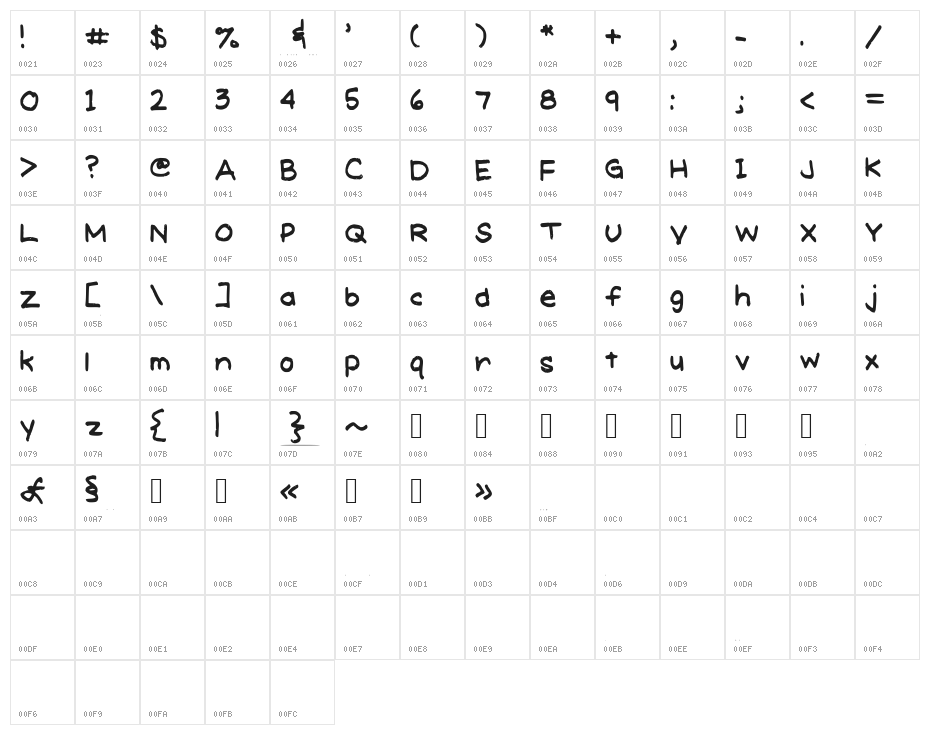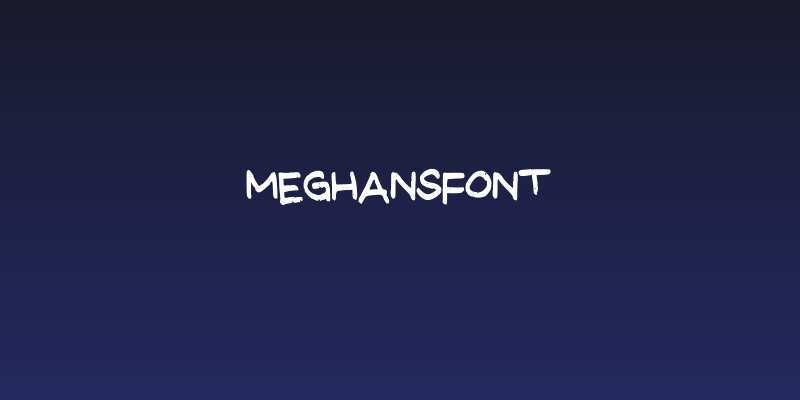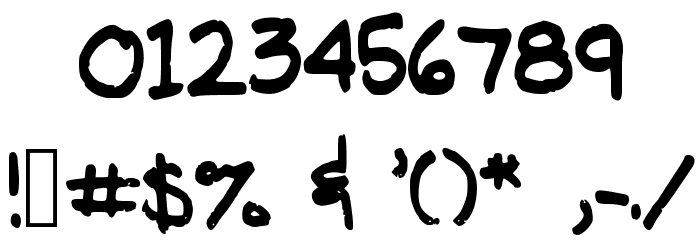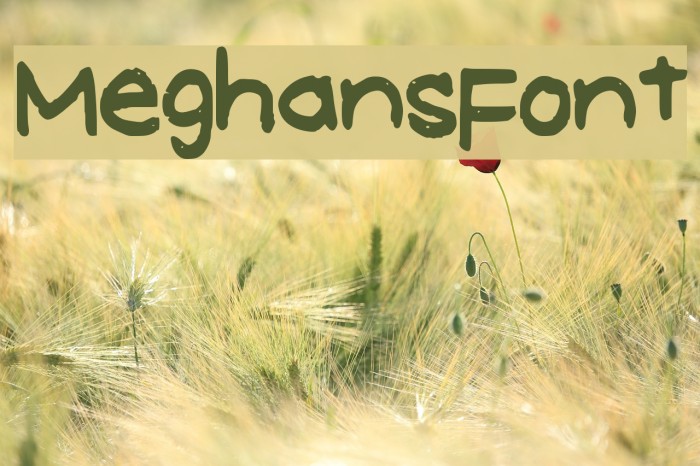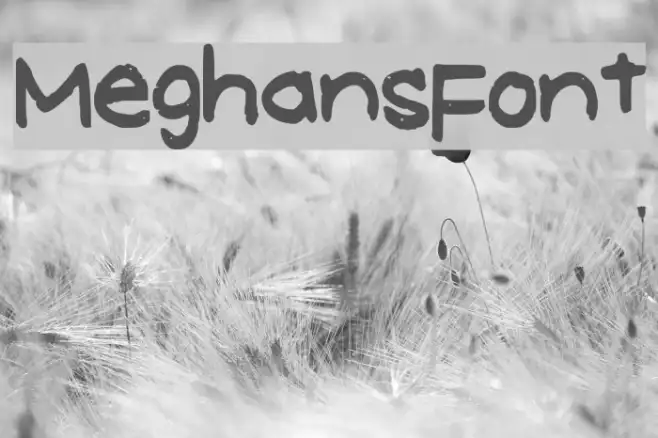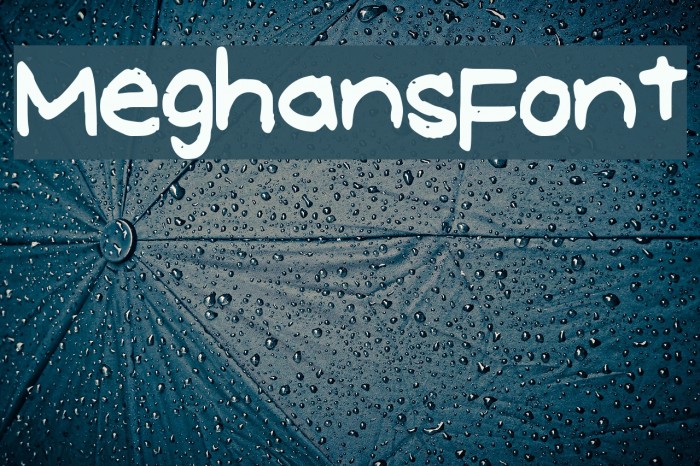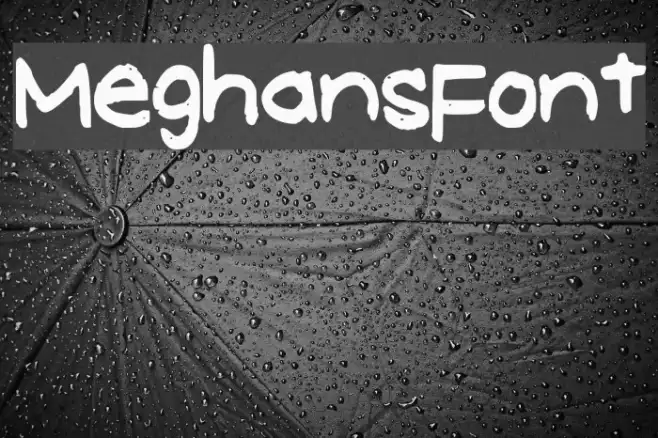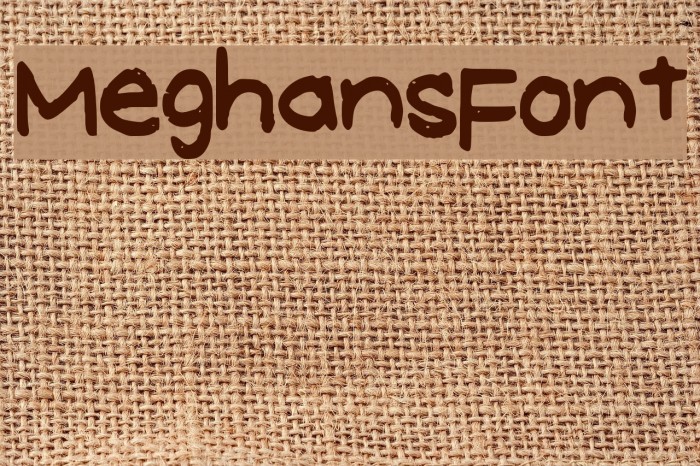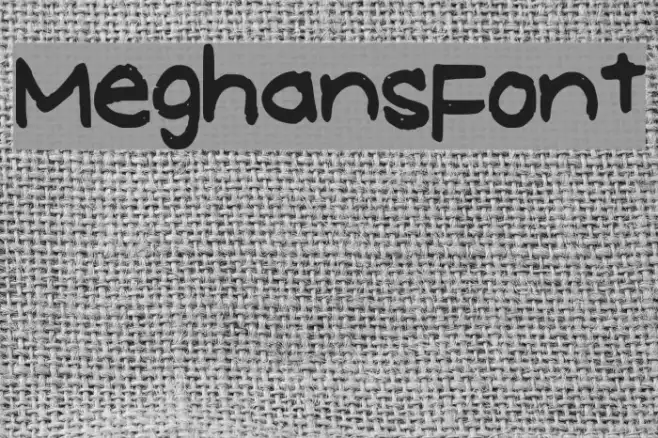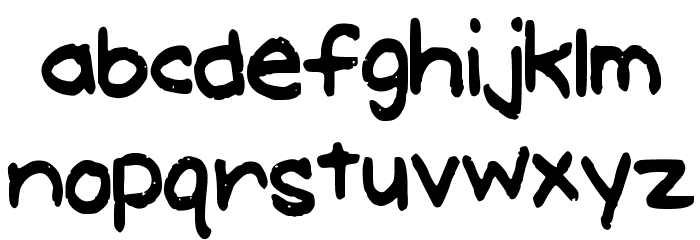
MeghansFont Font
MeghansFont Description
This font features a playful and casual handwritten style, characterized by its bold and slightly irregular strokes. The letters have a whimsical and friendly appearance, with rounded edges and a slightly uneven baseline that adds to its charm. The uppercase and lowercase letters maintain a consistent style, while the numerals and special characters complement the overall look. This font is well-suited for projects that require a personal touch or a fun, informal vibe.
| Proposed Projects | Ideal for greeting cards, children's books, playful branding, and casual invitations. |